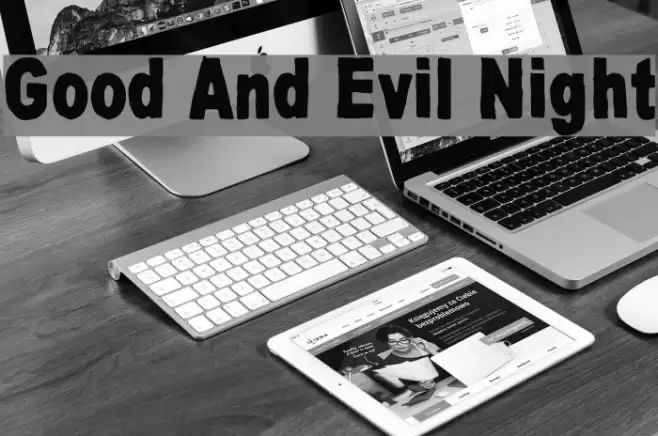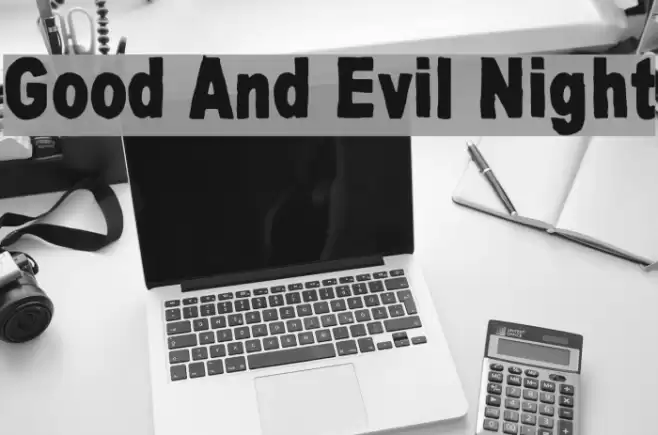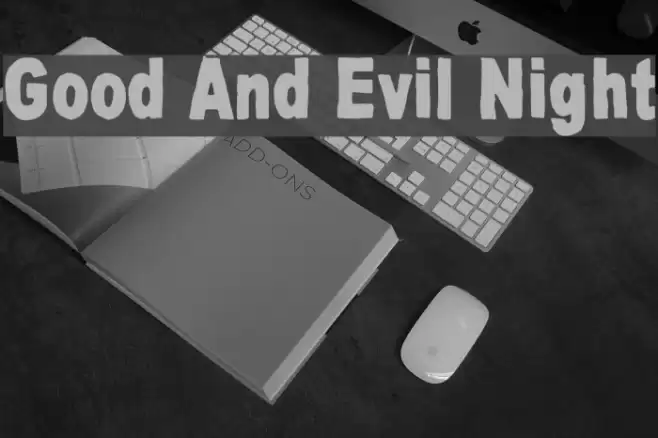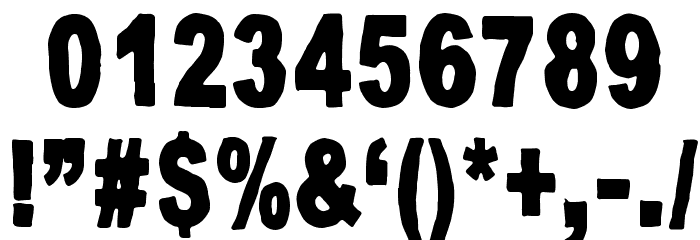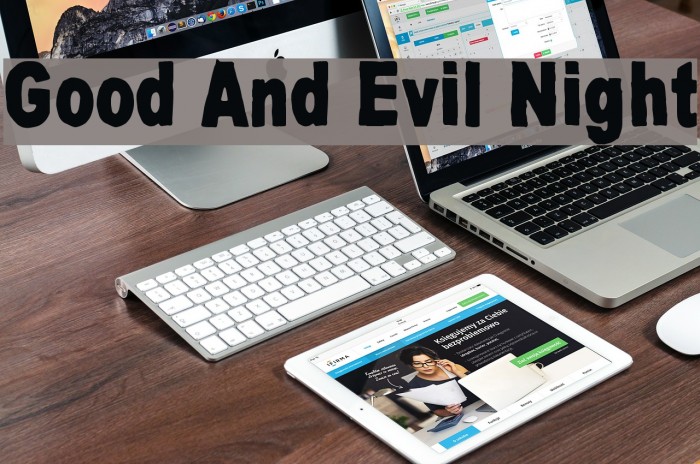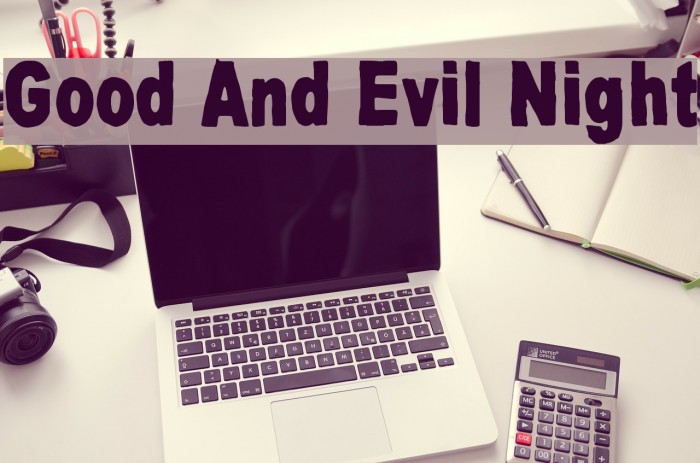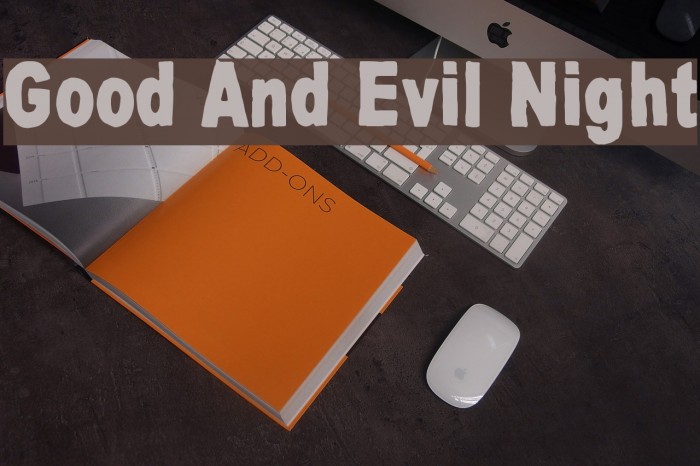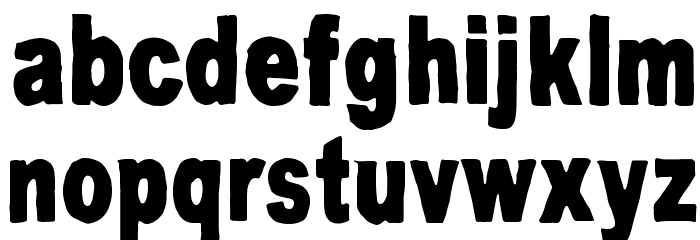
Good And Evil Night Font
Good And Evil Night Description
This font features a bold, rugged style with a strong presence. The characters are thick and slightly irregular, giving them a hand-crafted, organic feel. The uppercase and lowercase letters maintain a consistent weight, contributing to a cohesive look. The numbers and special characters follow the same bold aesthetic, ensuring uniformity across all text elements. The font's design is reminiscent of vintage or retro styles, making it suitable for projects that require a touch of nostalgia or a bold statement.
A bold, rugged font with a vintage, hand-crafted feel from Uncategorized fonts.
- Proposed Projects: Ideal for posters, logos, book covers, and any design needing a bold, vintage touch.
- Overall Style: Vintage